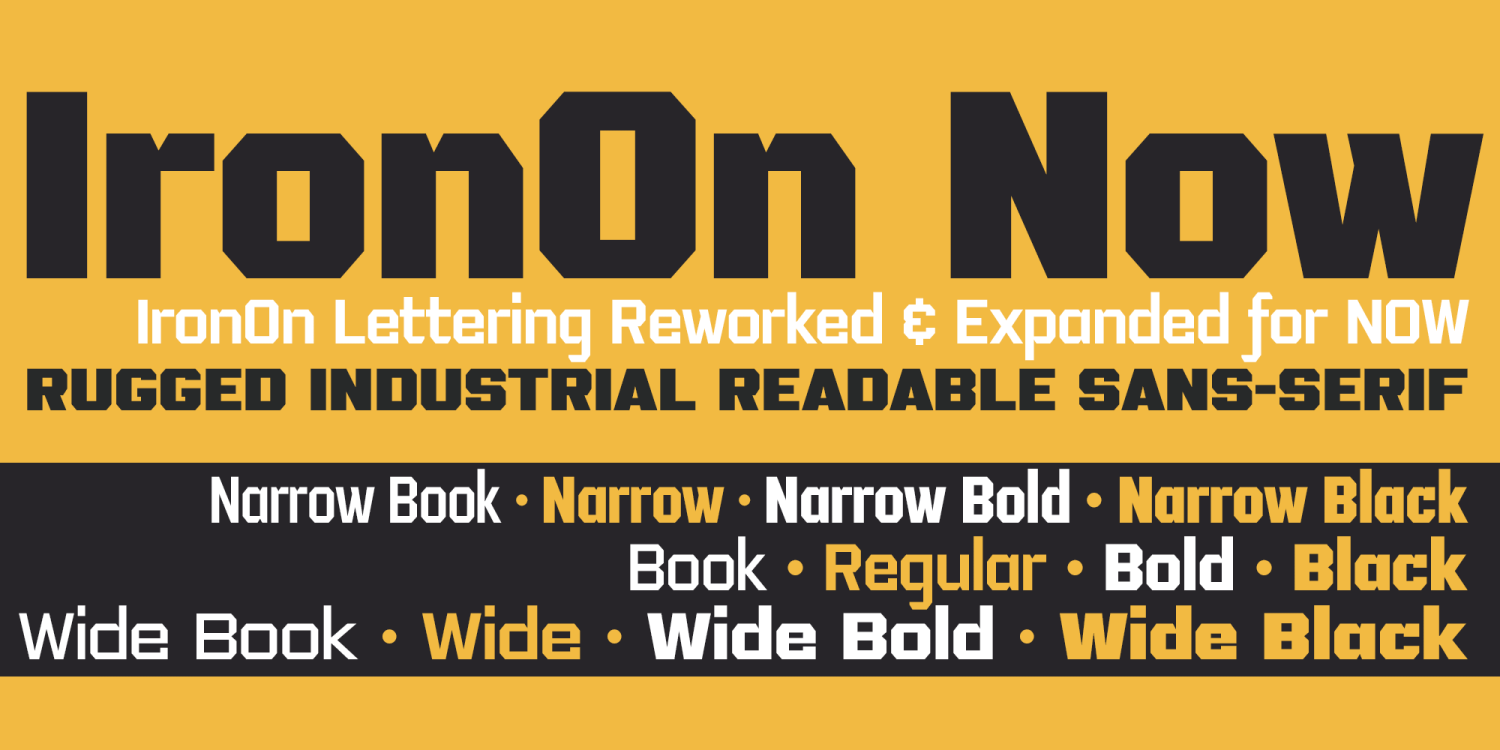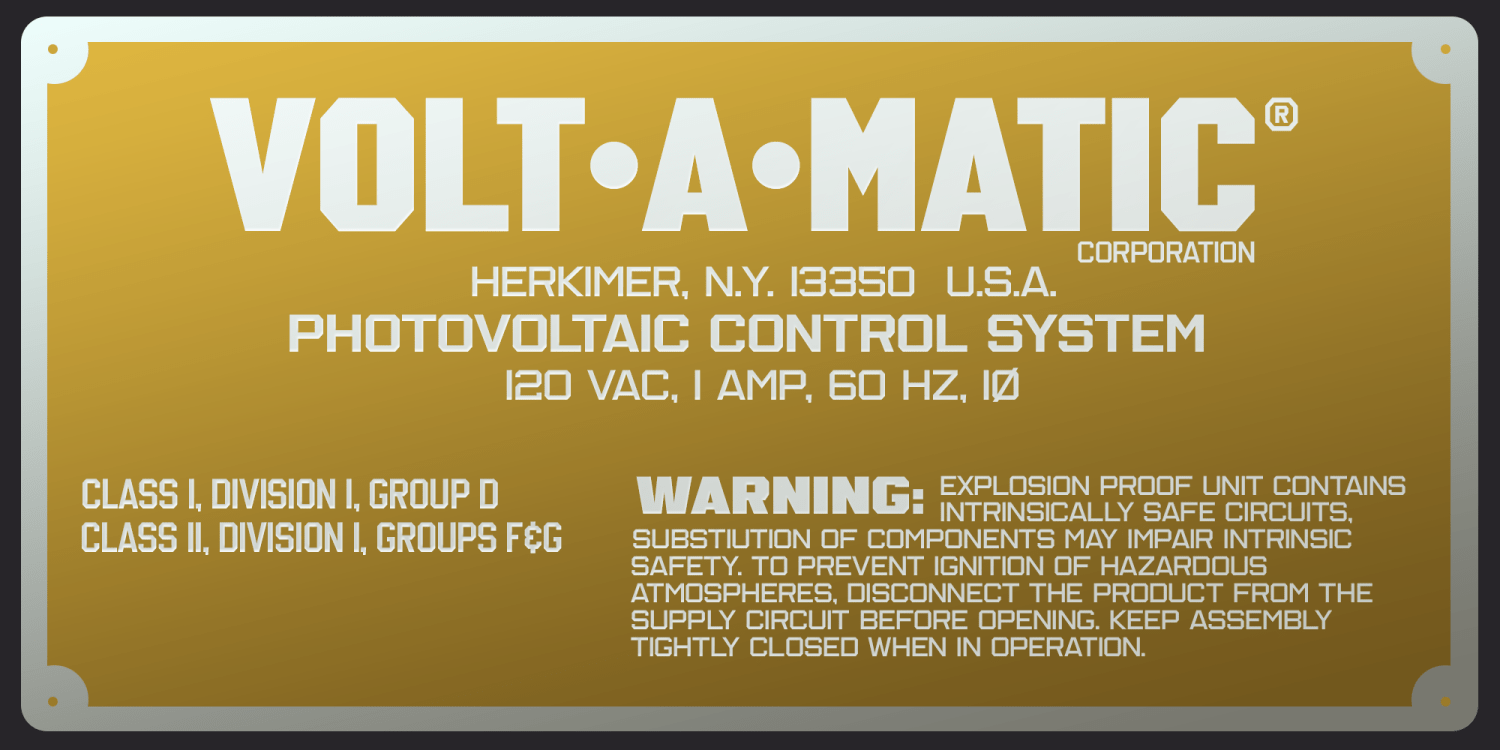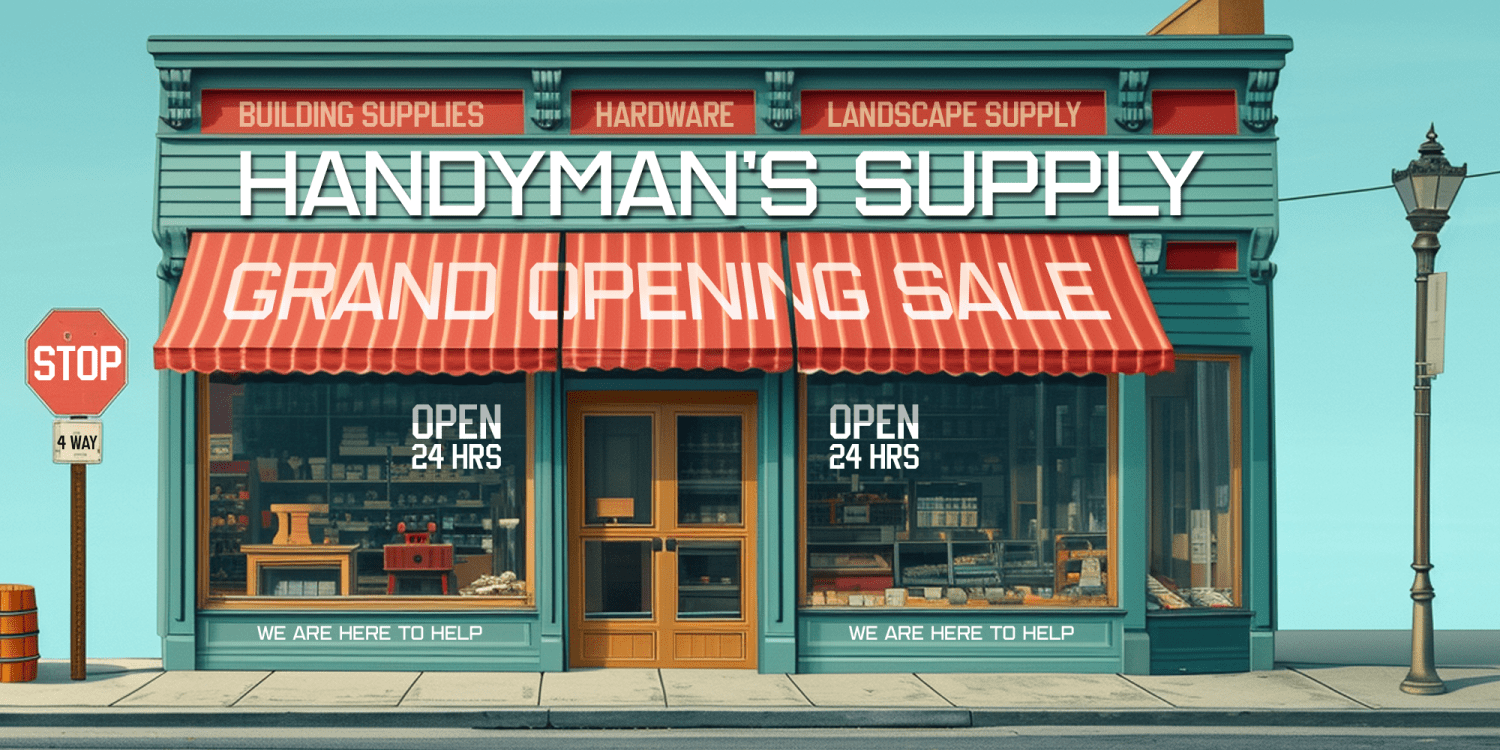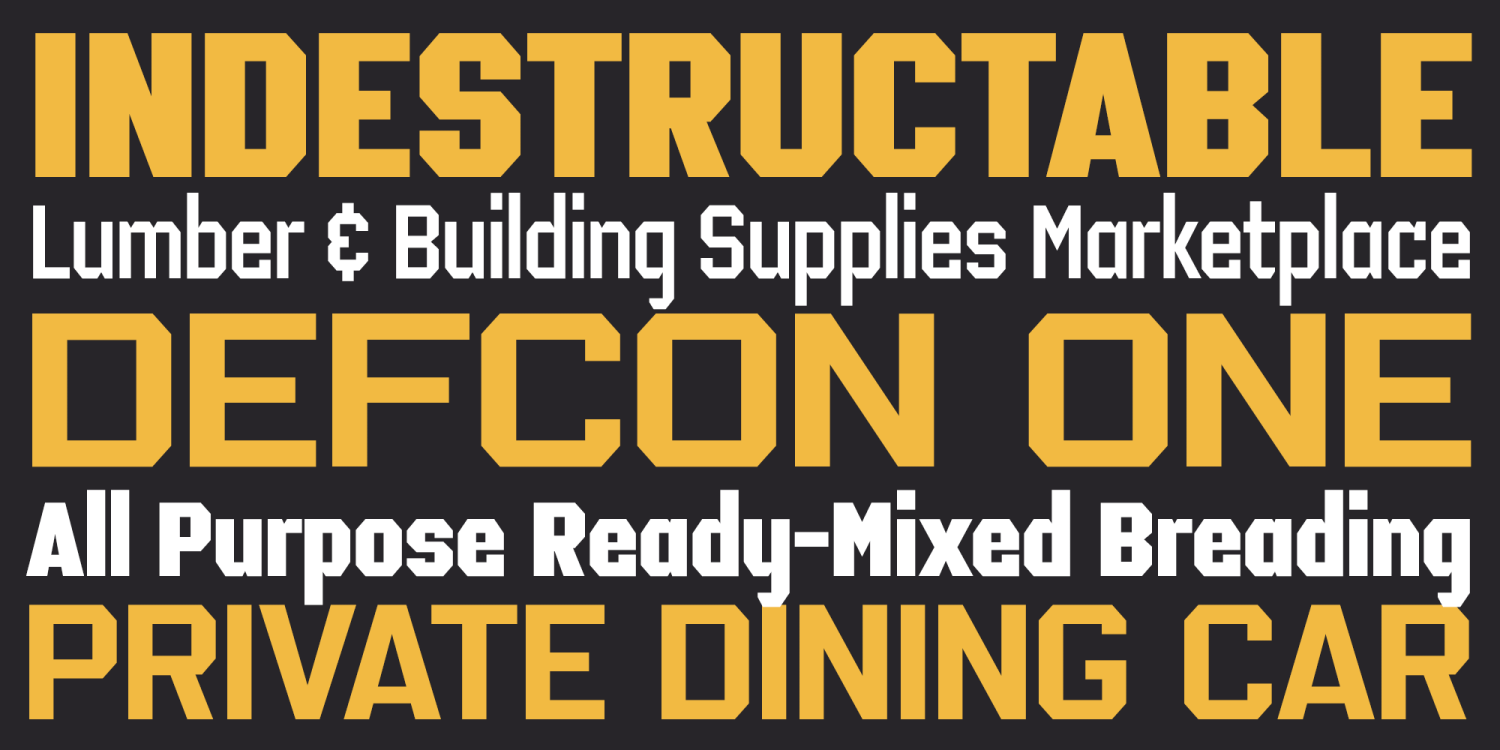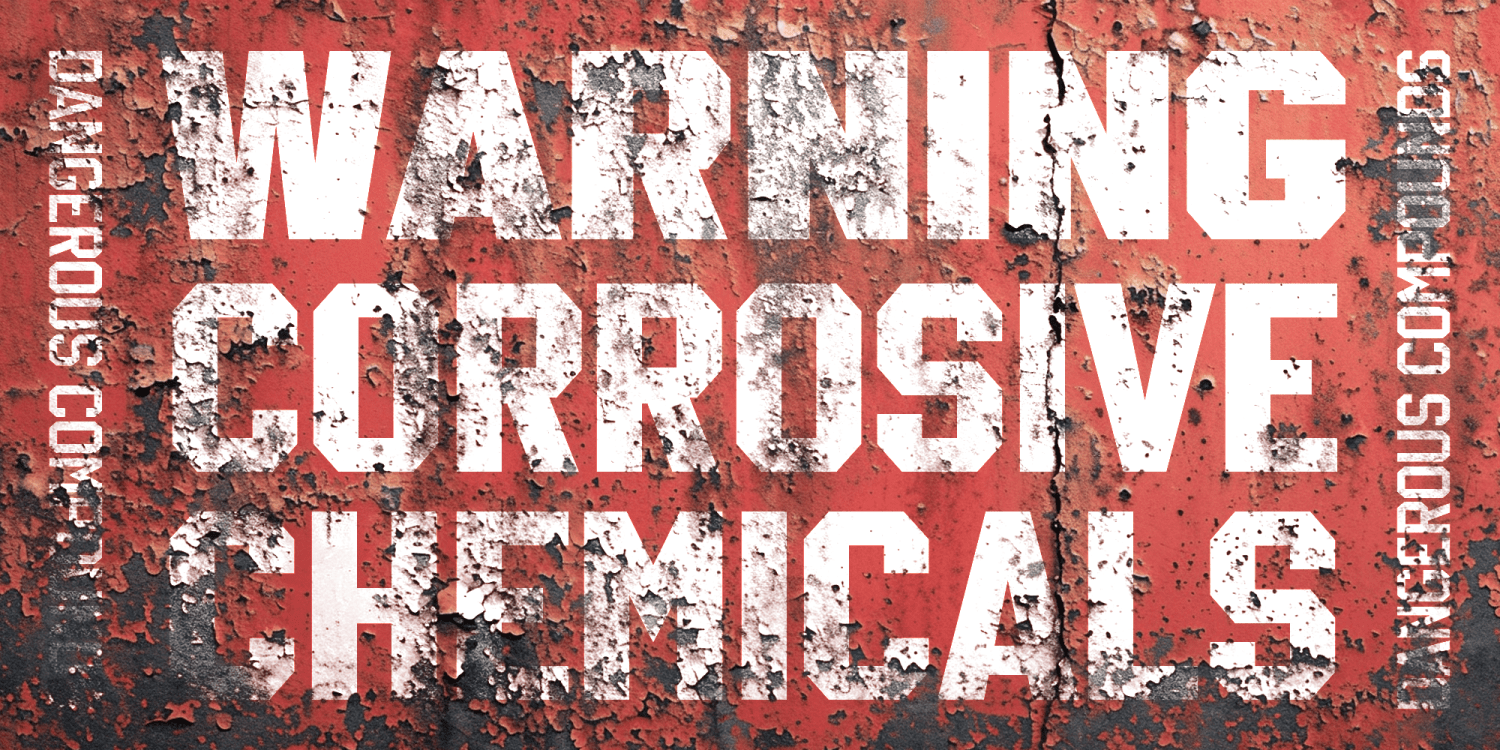
IronOn Now Collection
IronOn Now is the evolved, expanded overhaul of the original IronOn series, rebuilding the iron-on transfer lettering vibe of the 1970s into a much larger, more robust industrial display family. The core concept remains the same—rigid, mechanized, readable geometry with that unmistakable retro manufacturing energy—but IronOn Now refines the original 2008 designs and pushes them into a fuller system built for modern brand work.
With three widths and four weights per width, IronOn Now delivers serious range while keeping a consistent, engineered voice across the entire family. The forms are bold and functional, made to hold up in real-world typography where you need impact and clarity at the same time. Use it for packaging, apparel graphics, posters, advertising, logos, labels, and industrial applications like signage, wayfinding, technical-themed layouts, and newsletter or editorial headlines. If you want a rugged sans that feels manufactured, durable, and built to perform, IronOn Now brings that ironclad presence with a flexible family structure behind it.